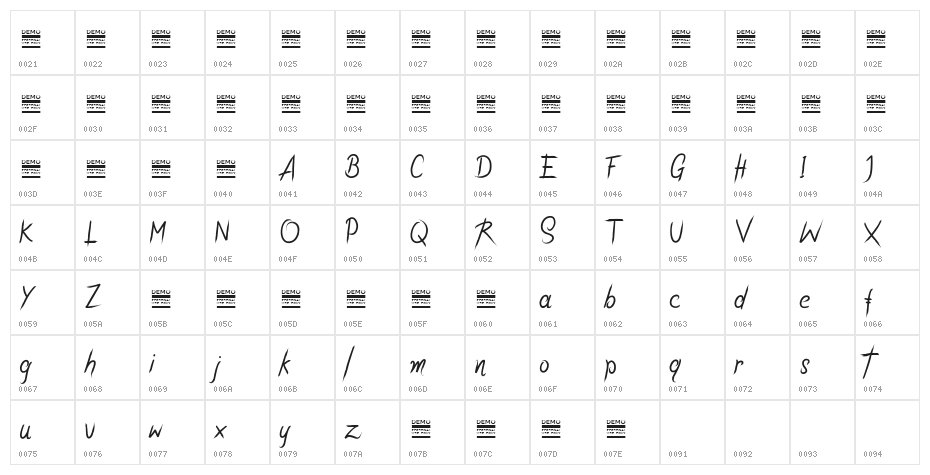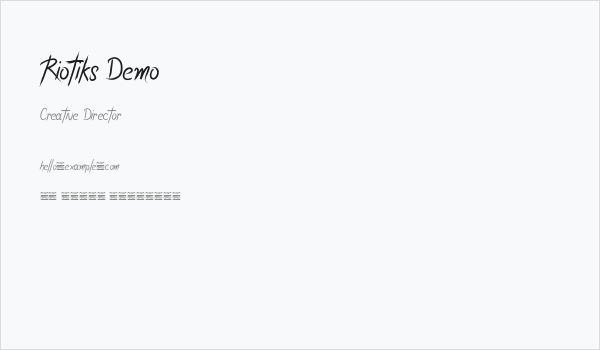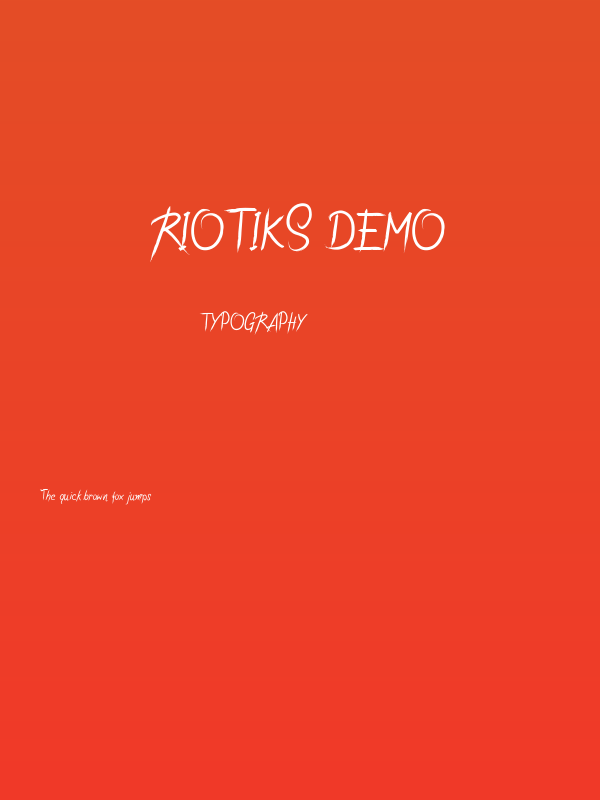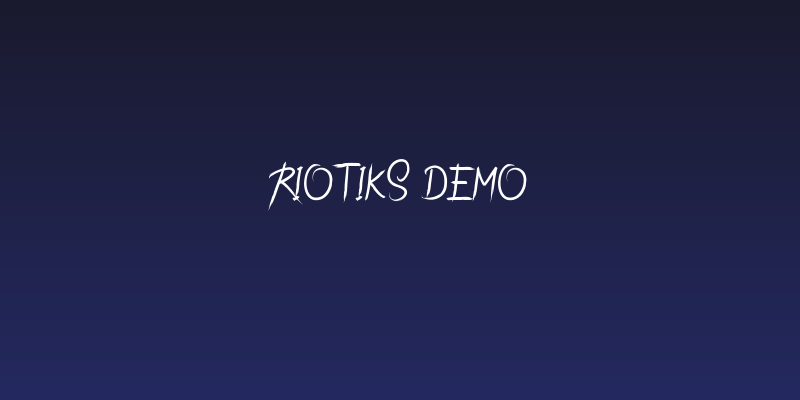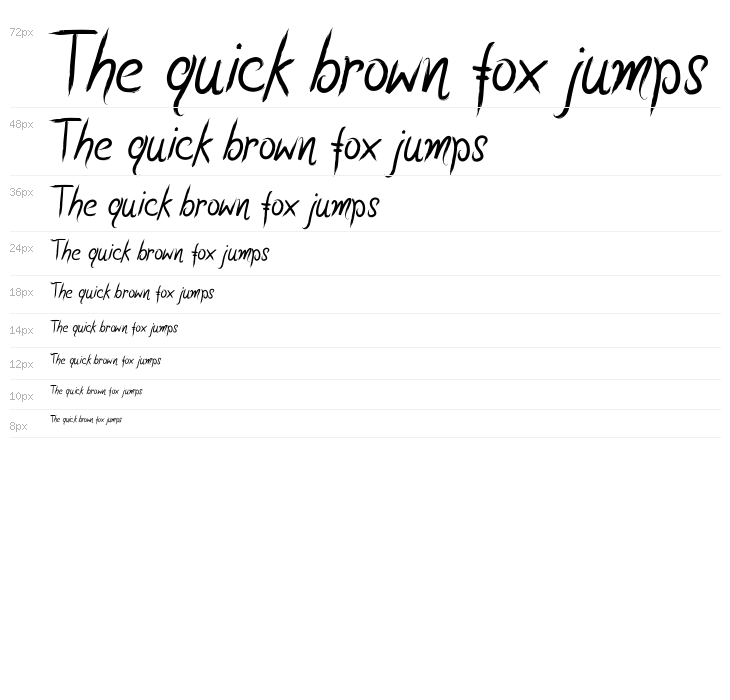
Riotiks Demo Font
Riotiks Demo Description
This font features a dynamic and edgy style, characterized by sharp, angular strokes and a hand-drawn appearance. The uppercase letters are bold and dramatic, with a sense of movement and energy, while the lowercase letters maintain a consistent flow with a slightly more restrained design. The numerals and special characters follow the same aesthetic, ensuring a cohesive look across all text. The overall impression is one of boldness and creativity, making it suitable for projects that require a strong visual impact.
| Proposed Projects | Ideal for music album covers, event posters, branding for edgy or alternative products, and creative digital artwork. |